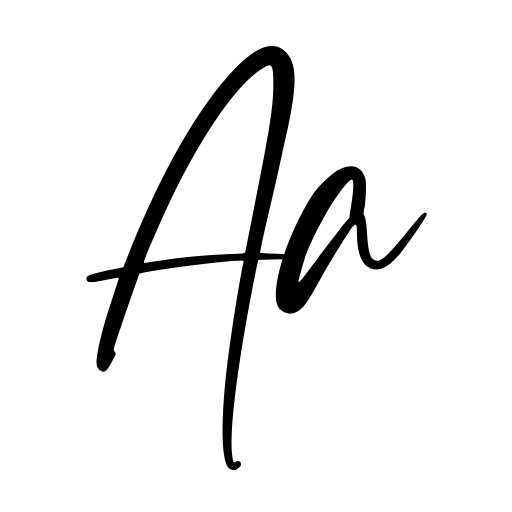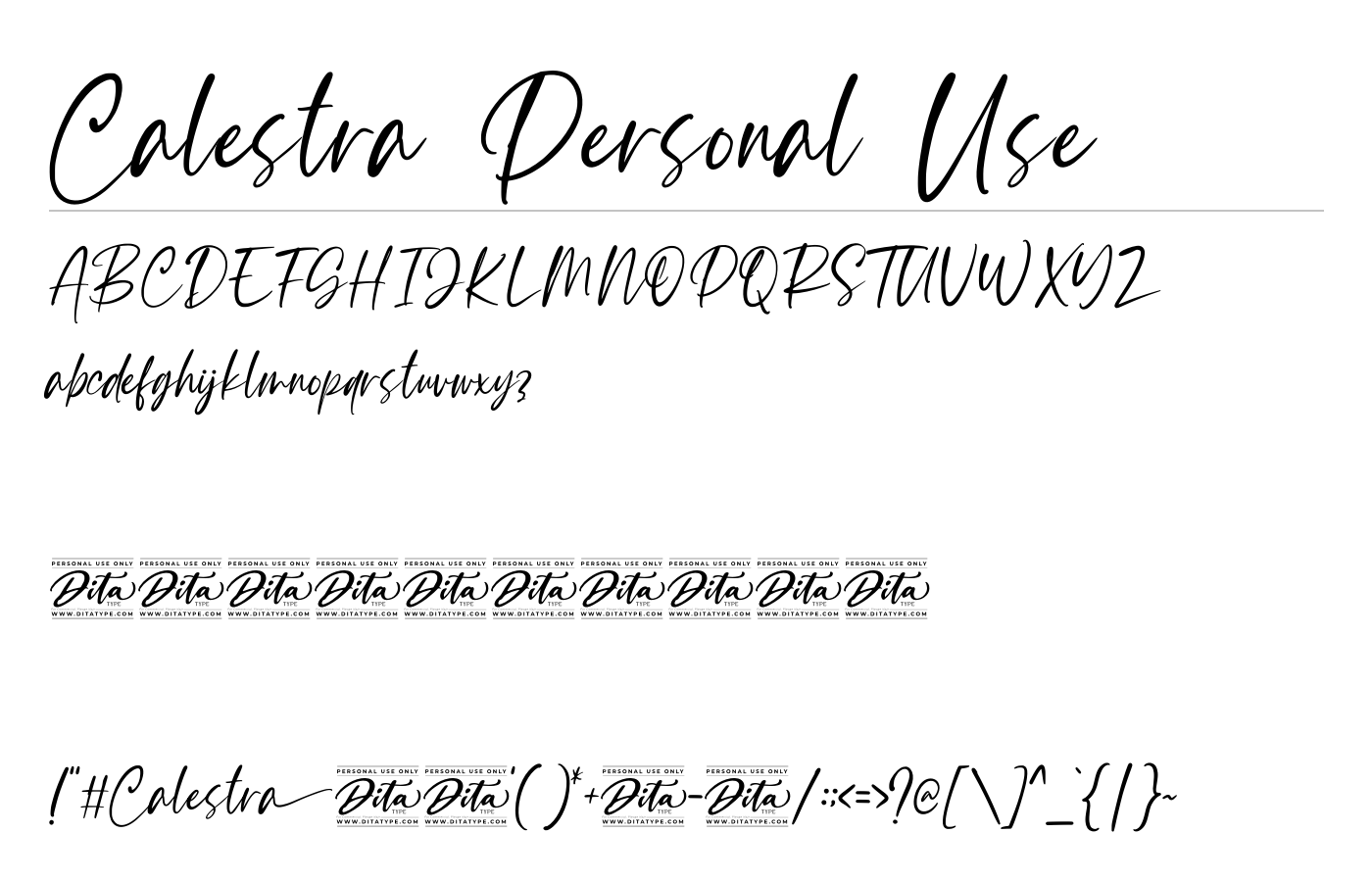
Calestra Personal Use is a delicate, handwritten script font characterized by its elegant, flowing strokes and natural, casual feel. It features a light weight with tall, narrow letterforms and smooth, slightly varied lines that evoke a personal, artistic touch, making it perfect for invitations, branding, and creative projects that seek a stylish yet approachable look. This font works well wherever a refined, feminine, or handcrafted aesthetic is desired, adding warmth and personality to both digital and print designs.
Calestra Personal Use Font
About Calestra Personal Use Font
| Font family | Calestra Personal Use Font |